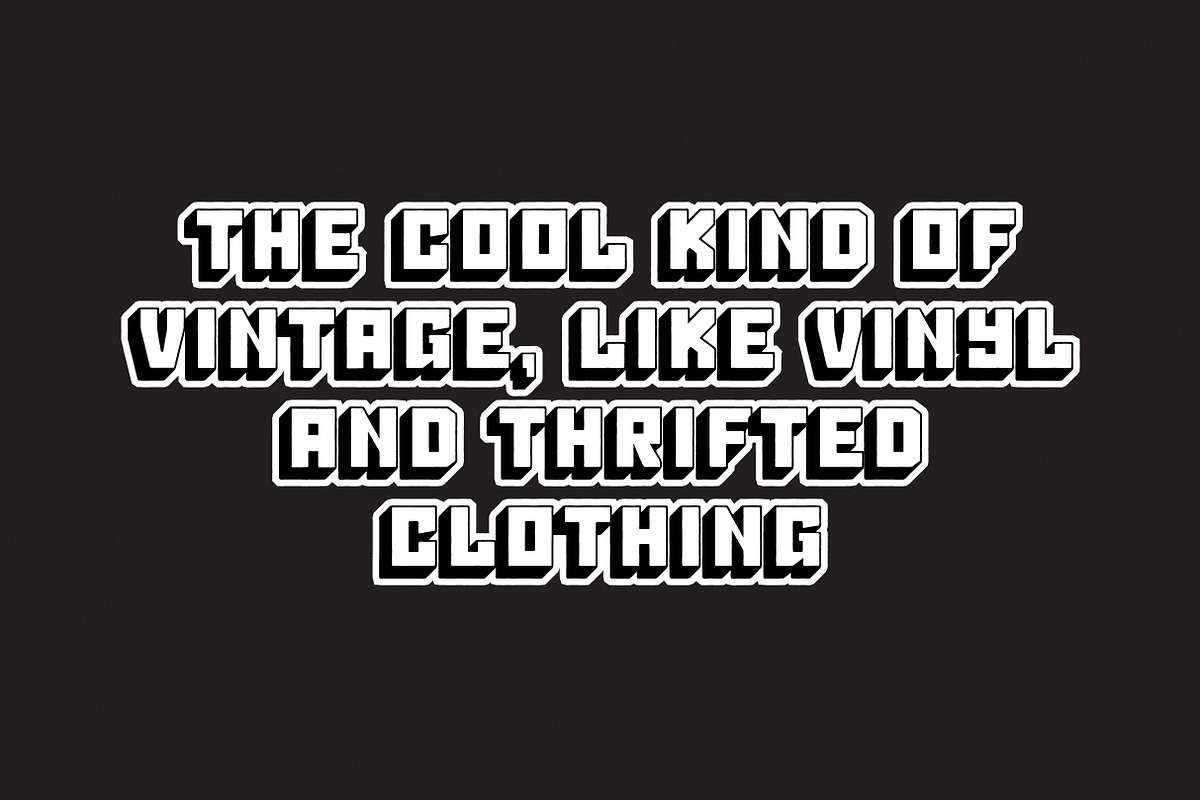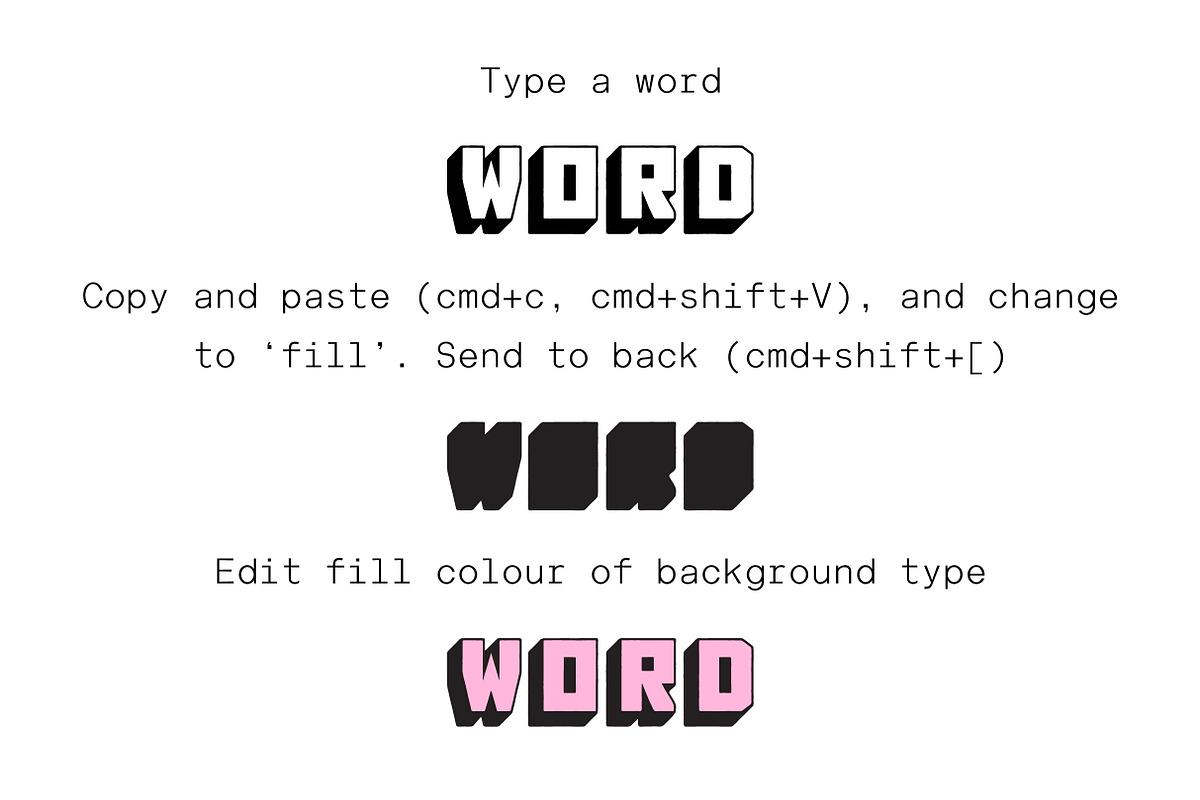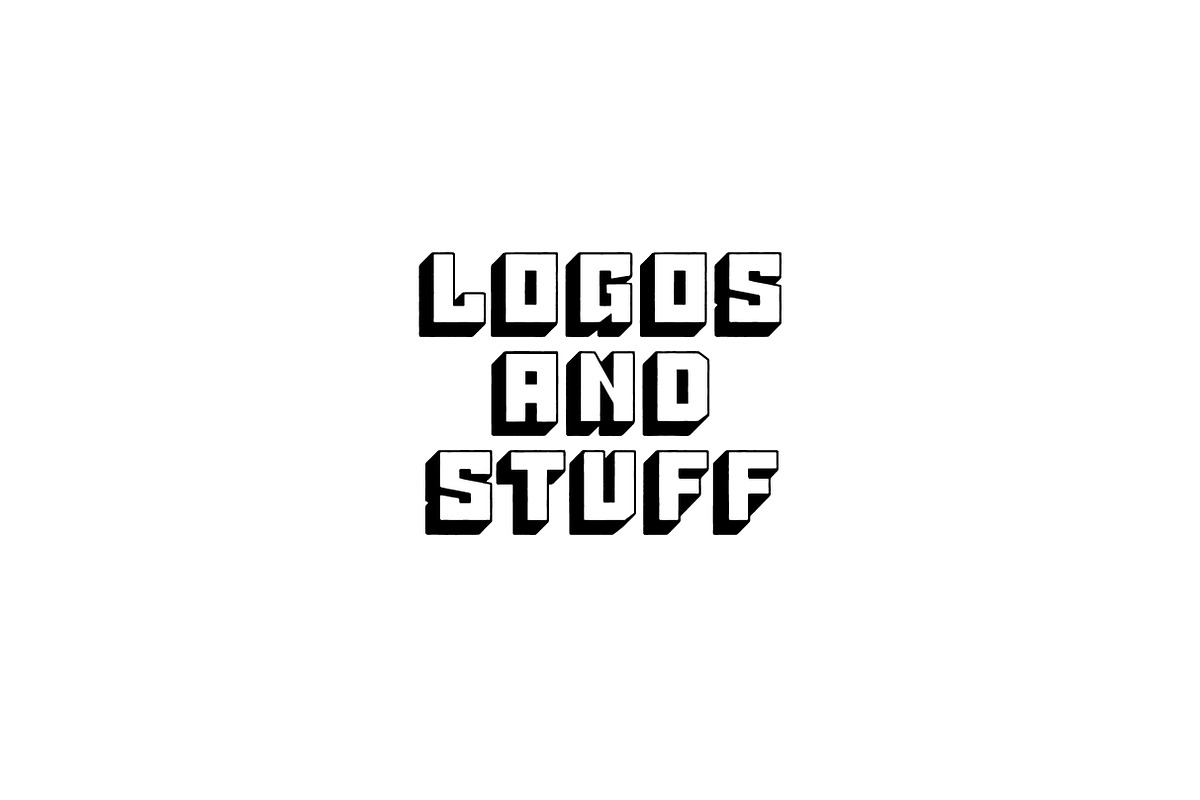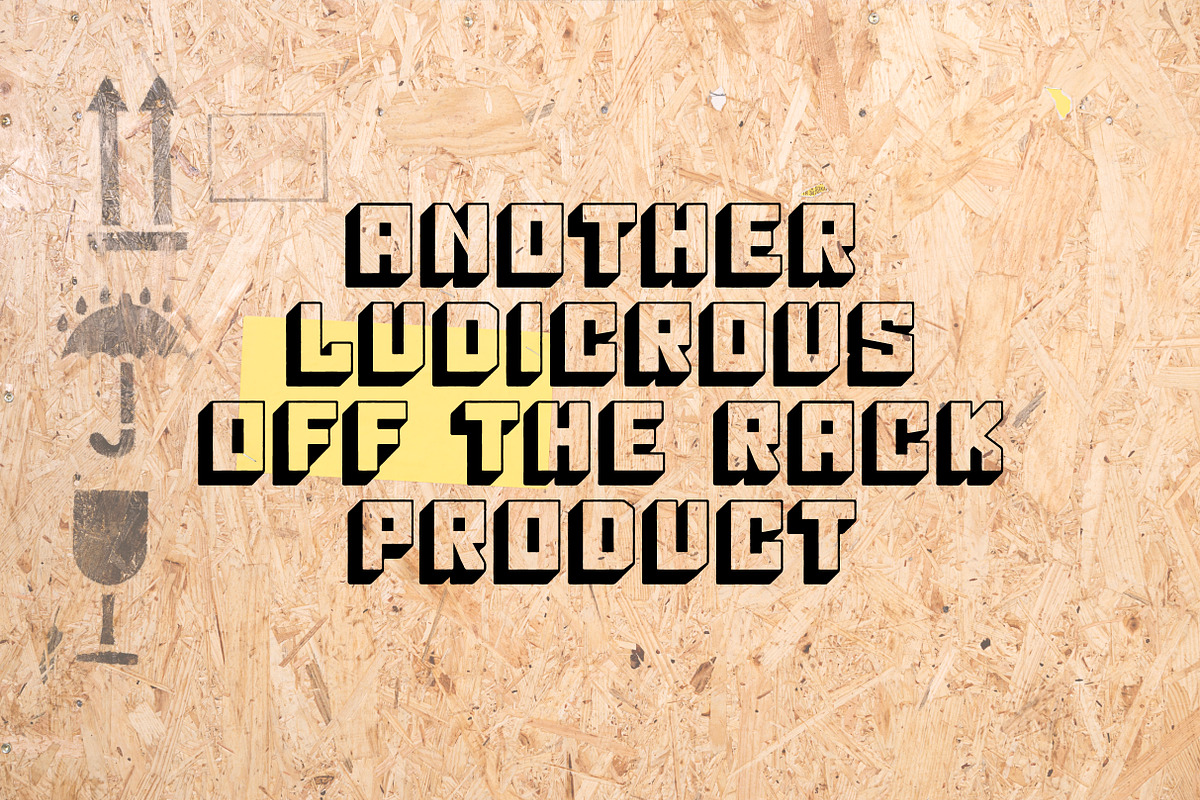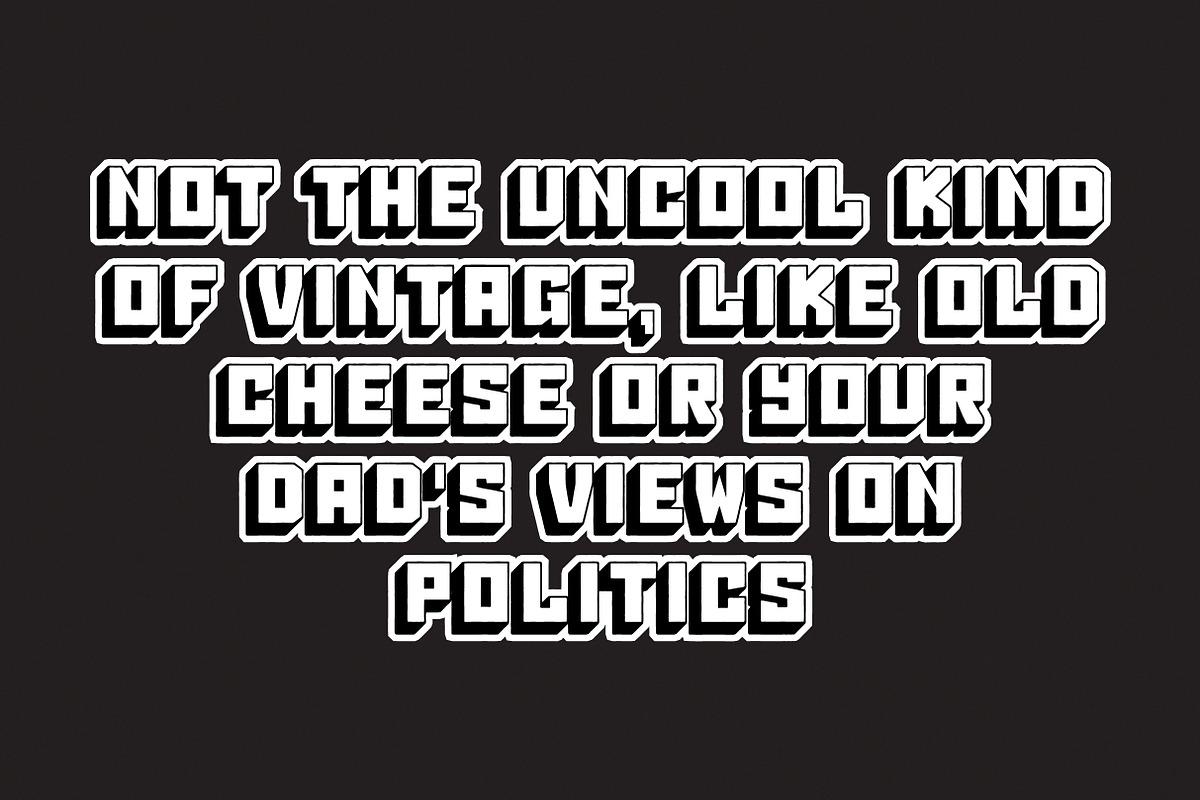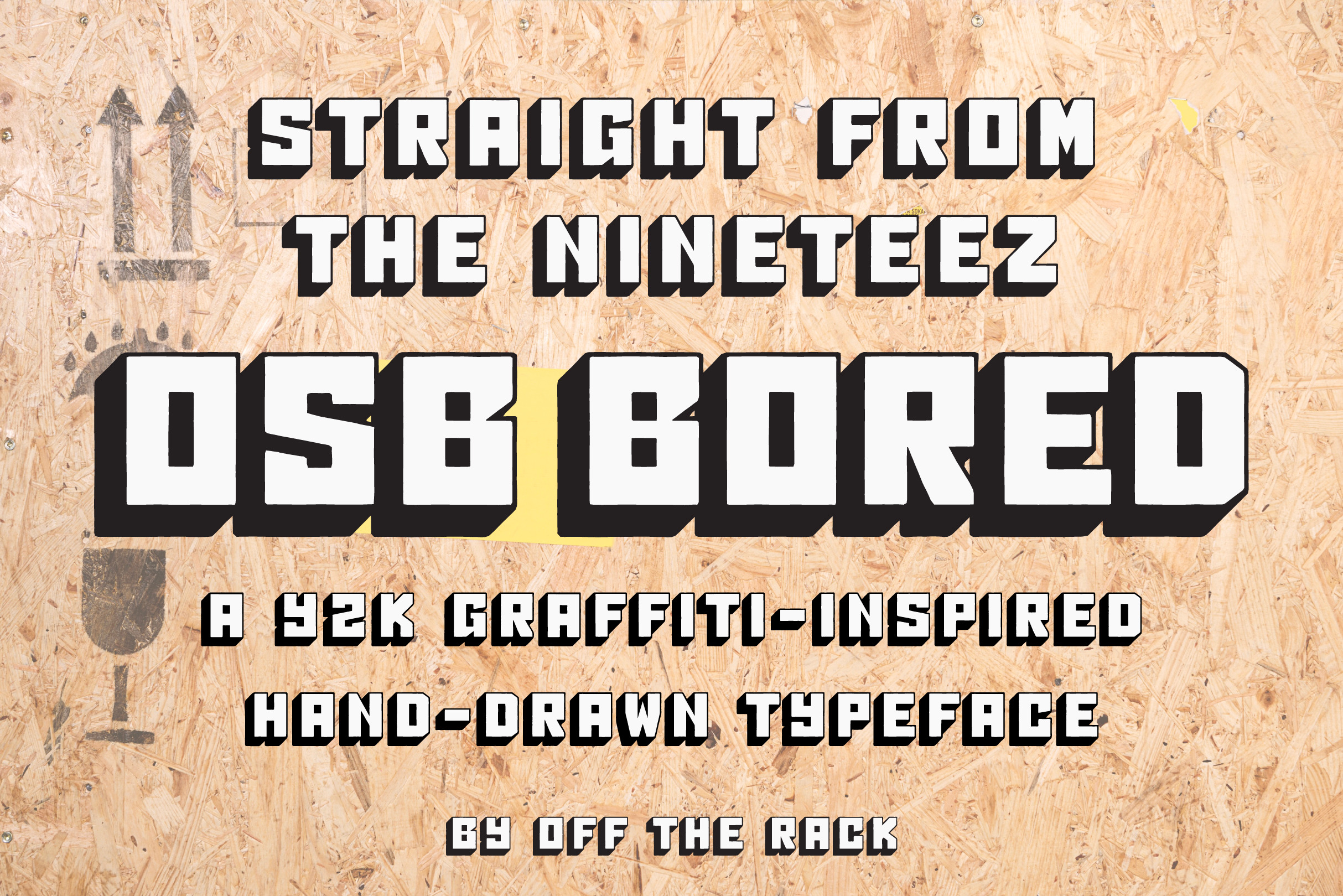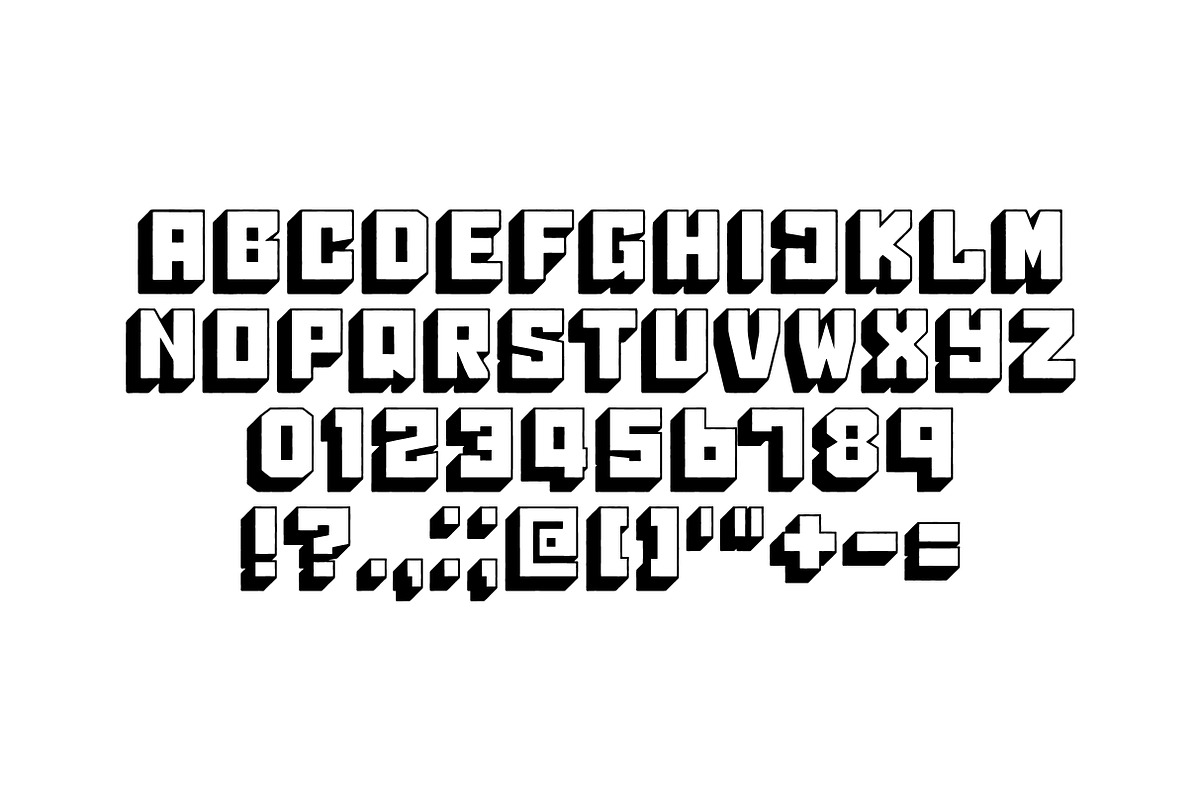
OSB BORED | Hand Drawn Y2K Font
Are no-show socks a fashion crime? 🧦
Is natural wine actually good? 🍾
Avoid the warring millennial and gen z factions! Stay home, where you don't even need to wear socks, and design things with the new ✨ OSB Bored ✨ typeface.
OSB Bored doesn’t care if you remember Steve Jobs pulling a MacBook out of a large envelope. OSB Bored is for all generations, cultivating the design aesthetics of Y2K - an era when Gen Z were being born and millennials were flipping cassettes (or whatever kids did in those days).
OSB Bored is designed with inky wonky edges, to capture that crisp graffiti vibe of the ‘90s and early ‘00s. 🖌️And! you can edit the colour fill by copy-and pasting a second text box below containing the ‘fill’ weight (all the font metrics are 100% identical, so you never have to worry about the fill lining up with the outlines).
Contains uppercase characters, digits, and simple punctuation (just the good ones like exclamation marks and semi-colons).